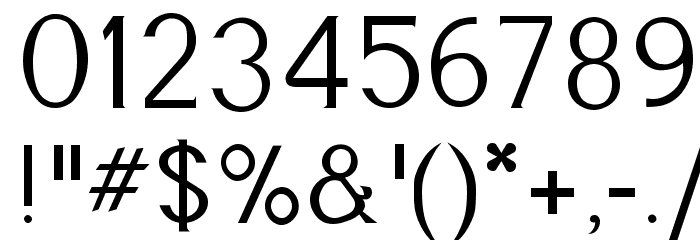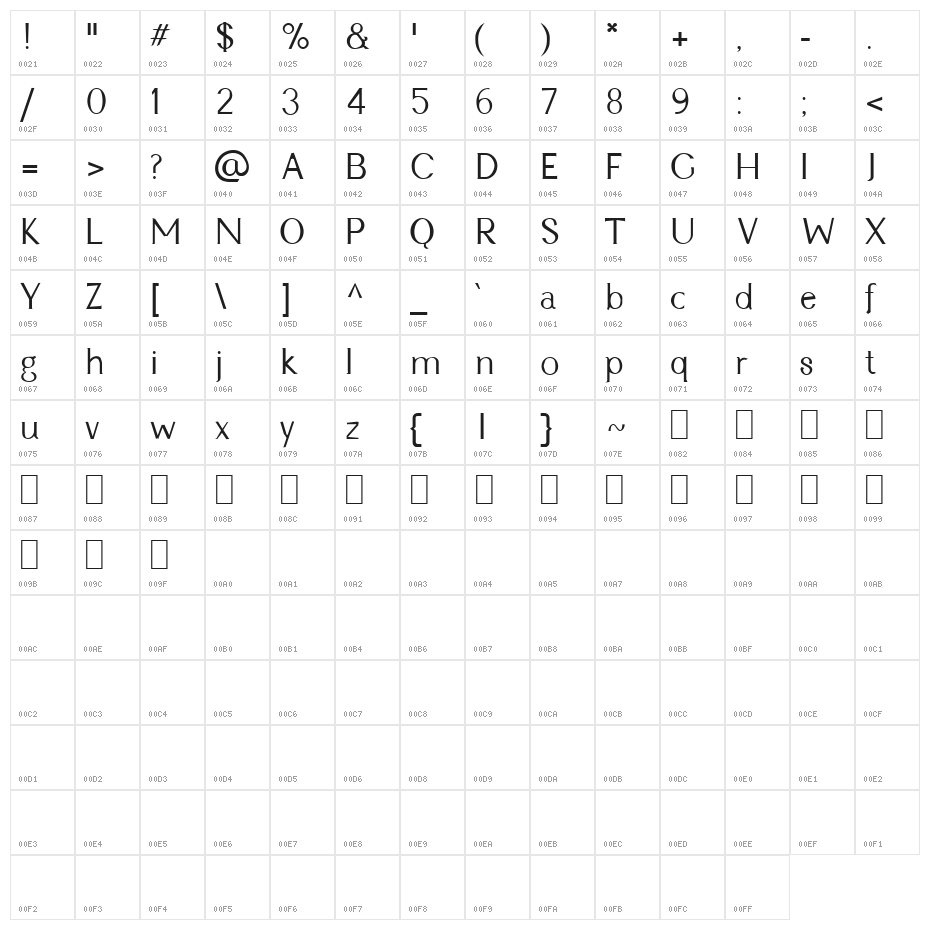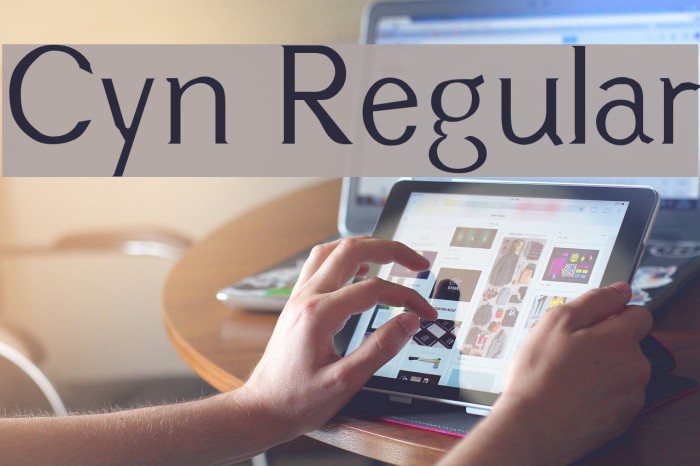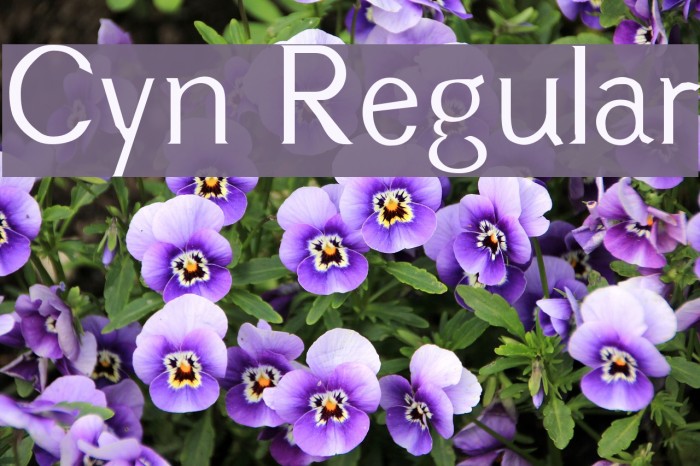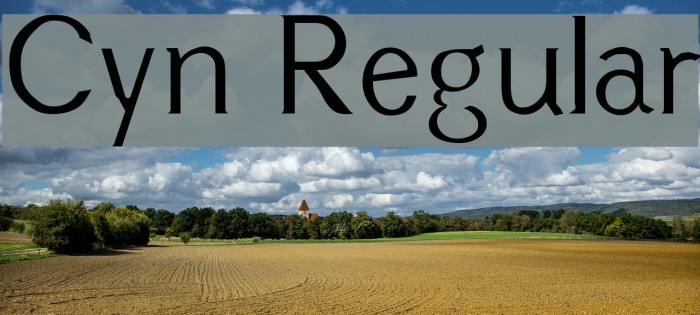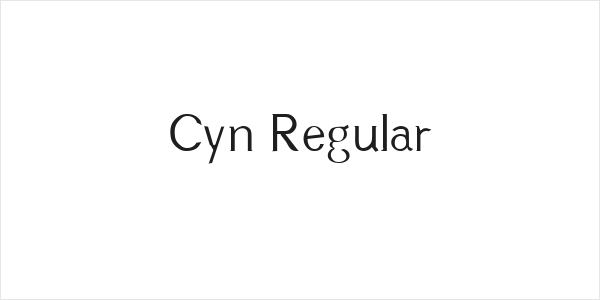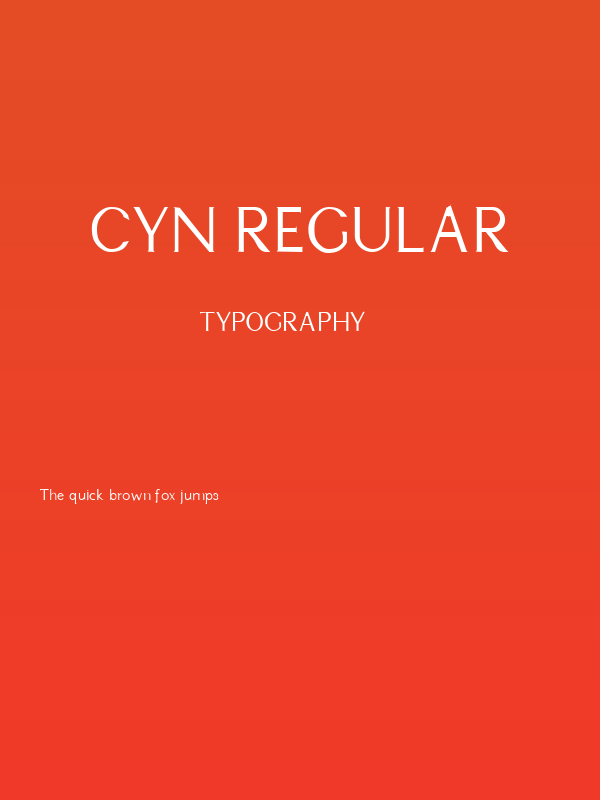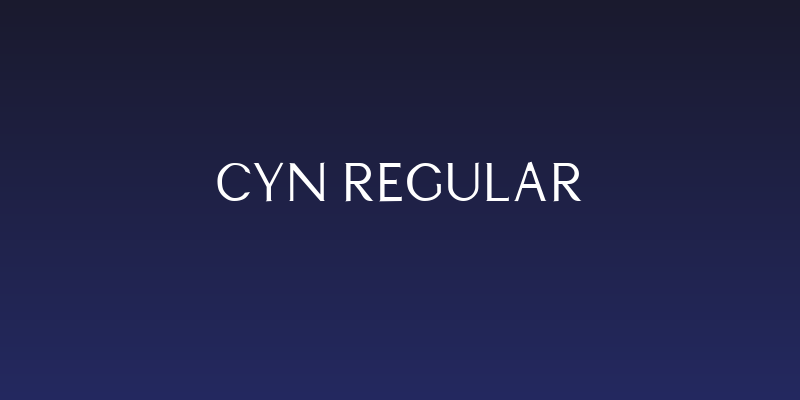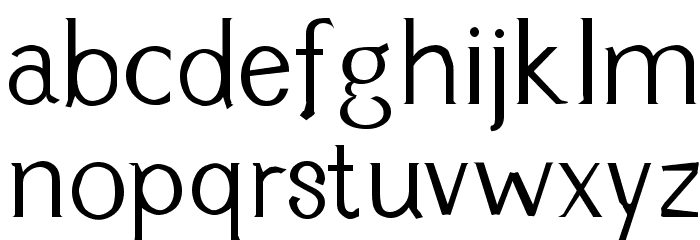
Cyn Regular Font
Cyn Regular Description
This font features a clean and modern sans-serif design with a balanced and harmonious appearance. The characters are well-proportioned, offering a sleek and professional look. The uppercase letters are bold and assertive, while the lowercase letters maintain a friendly and approachable style. The numerals are clear and easy to read, making them suitable for various applications. Special characters are thoughtfully designed, ensuring consistency across the typeface. The overall aesthetic is versatile, making it suitable for both digital and print media.
| Proposed Projects | Ideal for corporate branding, web design, editorial layouts, and advertising campaigns. |